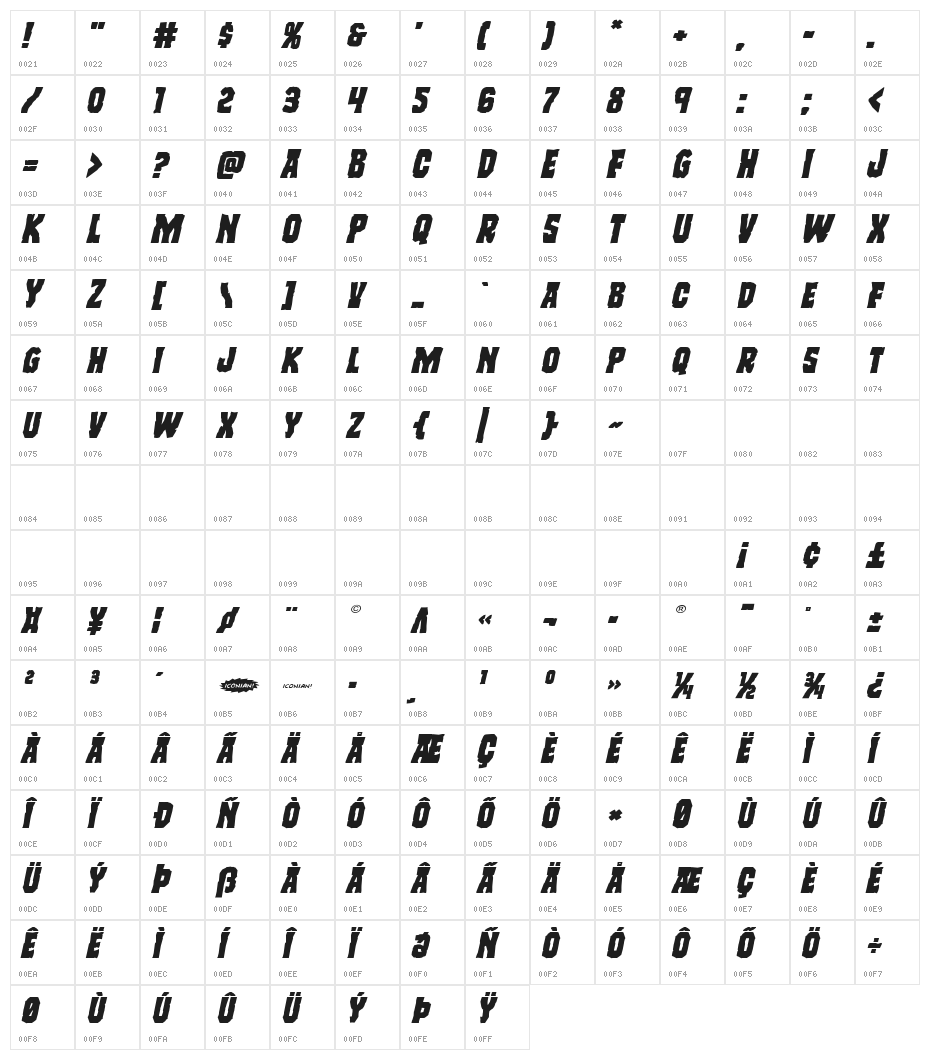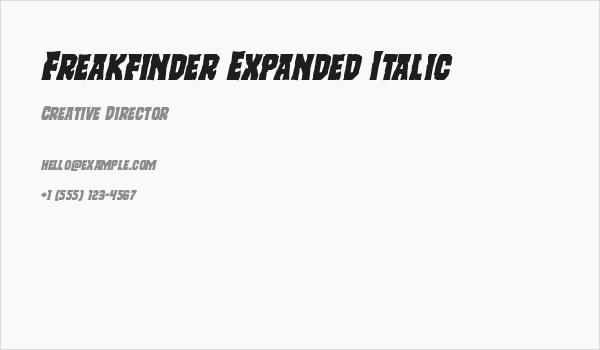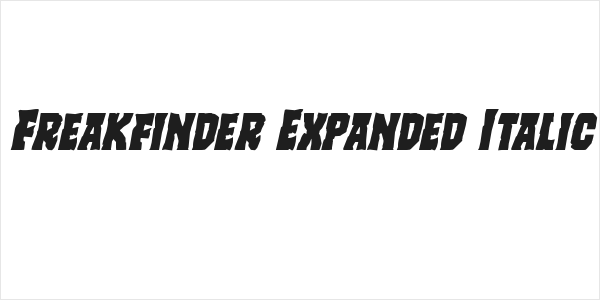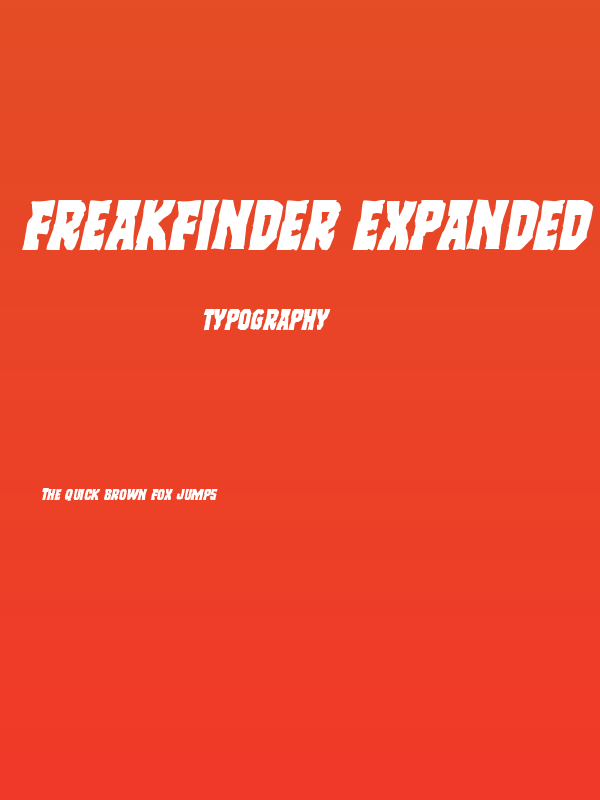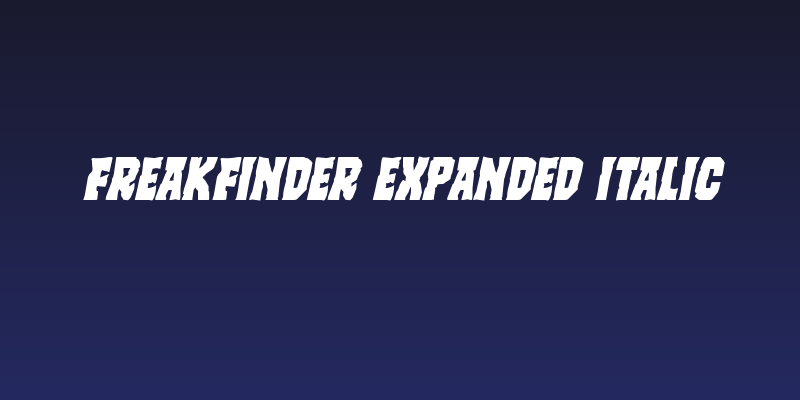
Freakfinder Expanded Italic Font
Freakfinder Expanded Italic Description
This font features a bold and dynamic style with a distinctly italicized slant, giving it a sense of motion and energy. The characters are heavily stylized with sharp, angular edges and a rugged appearance, making it ideal for projects that require a strong visual impact. The uppercase and lowercase letters maintain a consistent design, while the numbers and special characters complement the overall aesthetic. The font's expanded width adds to its commanding presence, making it suitable for attention-grabbing headlines or logos.
| Proposed Projects | Ideal for posters, album covers, video game titles, and branding that requires a bold, energetic look. |